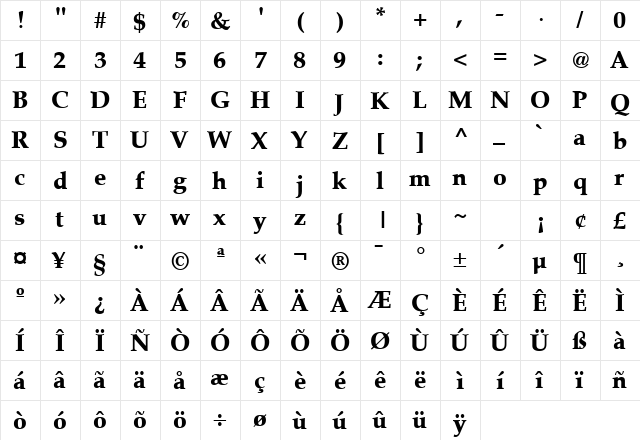
LatinoPal7 ExtraBoldSH
Design Context for LatinoPal7 Typeface
LatinoPal7 offers clean, dependable letterforms without strong stylistic allegiance, making it a practical choice for designers who need flexibility. Its bold stroke weight gives it real presence on the page.